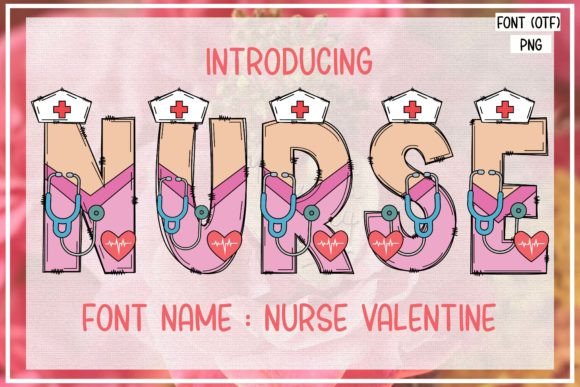
Looking for the perfect font to add a playful and colorful touch to your Valentine's Day projects? Look no further than Nurse Valentine Font! This font family, created by MDF, is one of the best fonts for Valentine's Day out there.
Nurse Valentine Font features a friendly and jolly design that's perfect for adding a lighthearted touch to any project. The nurse theme makes it a great choice for healthcare-related designs, but it's versatile enough to use in a wide range of projects.
With Nurse Valentine Font, you can add a pop of color to your designs, thanks to its vibrant color palette. Whether you're designing a Valentine's Day card, a social media post, or a website banner, this font will help you create a visually appealing and attention-grabbing design.
But Nurse Valentine Font isn't just visually appealing - it's also incredibly easy to use. The font is available in both OTF and TTF formats, so you can use it on a wide range of design software. And with its clean and well-defined characters, you can be sure that your text will be easy to read, no matter what size or format you use.